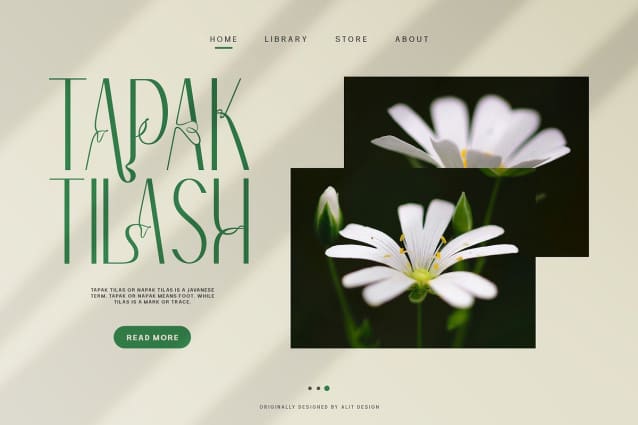
Redivola Font
Redivola Font is an exquisite sans serif font uniquely crafted with delicate, ribbon-like curves that bring an unmatched level of sophistication to your designs.
Perfect for a wide range of applications including branding, editorial design, web design, and more. Redivola adds a touch of class to any project.